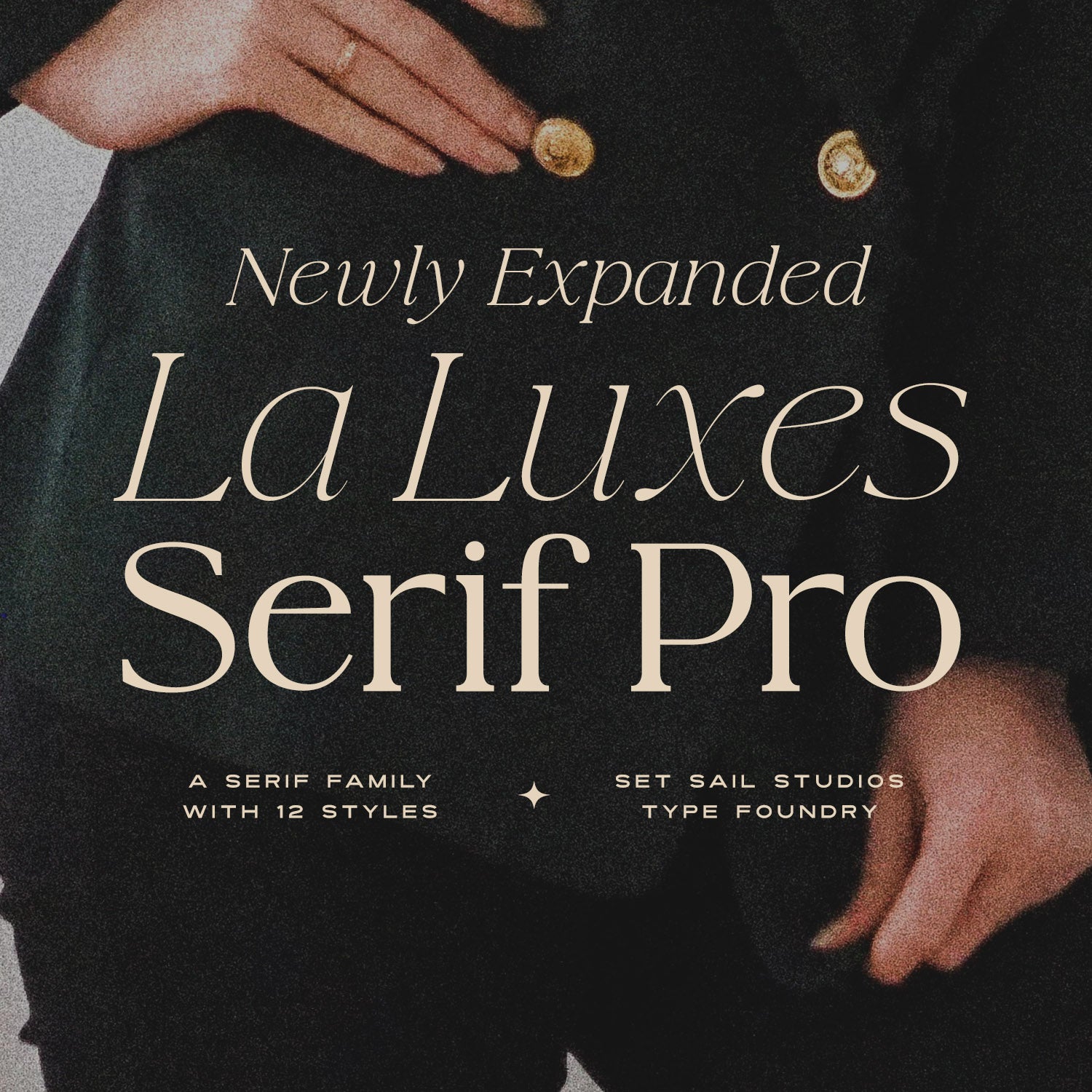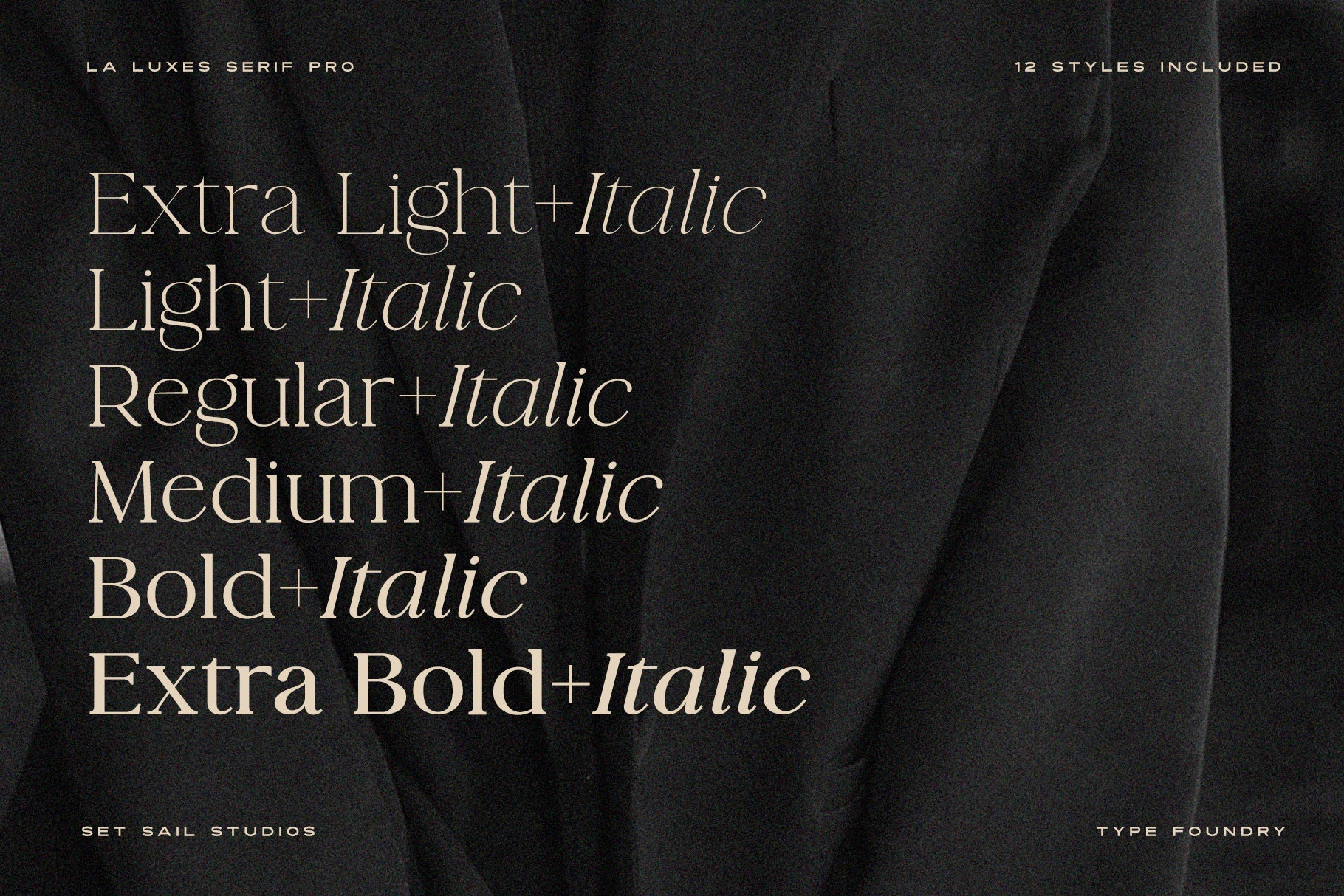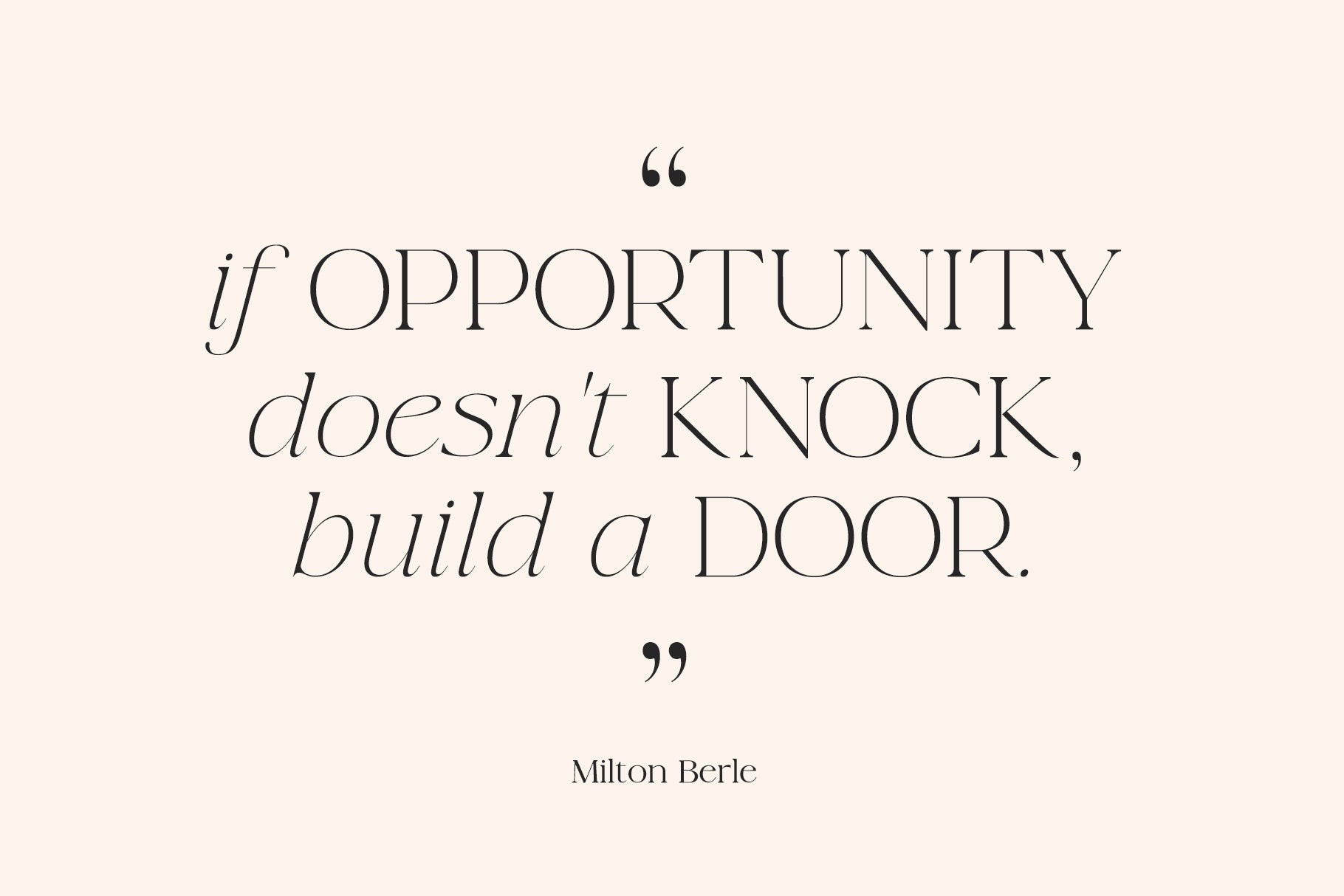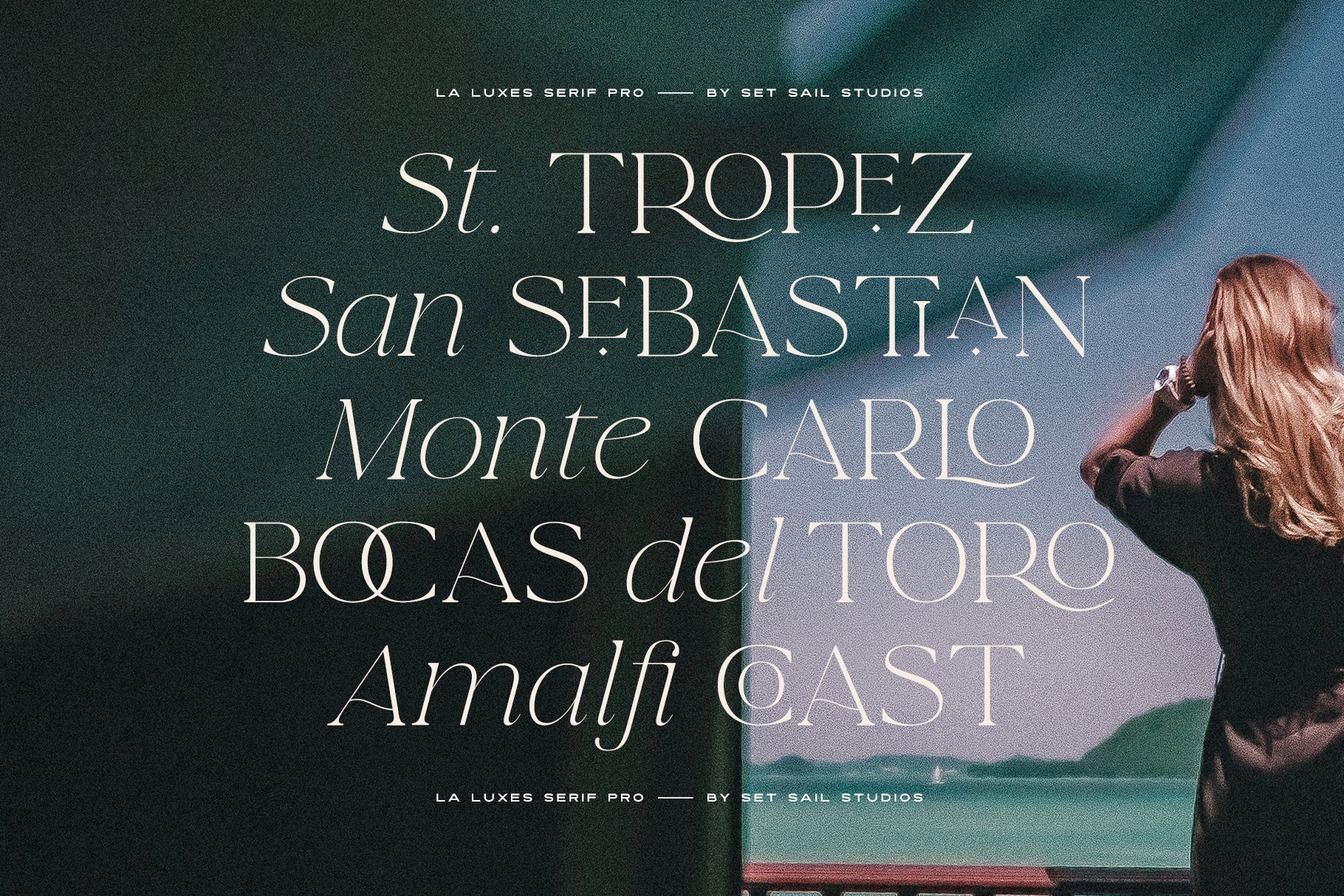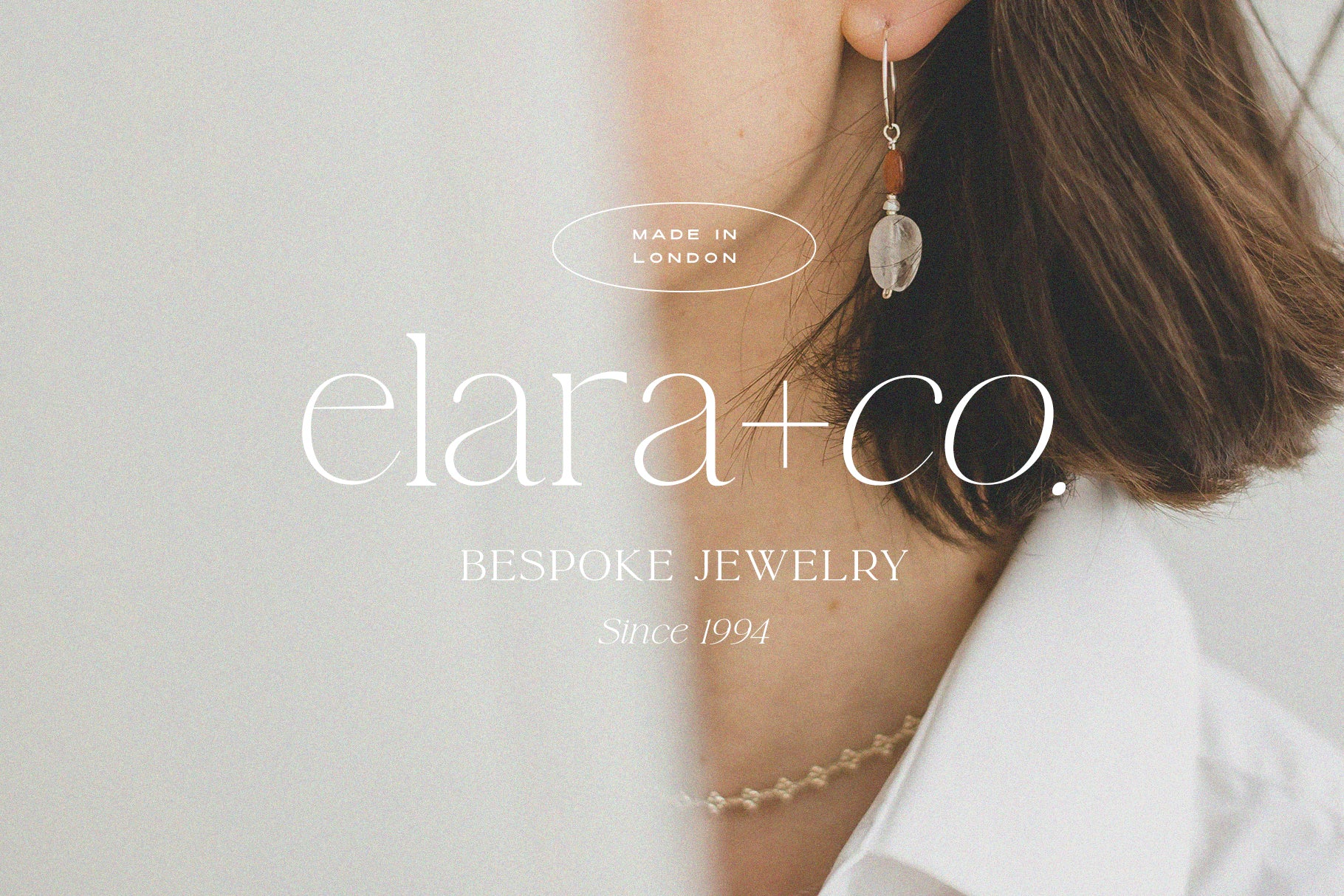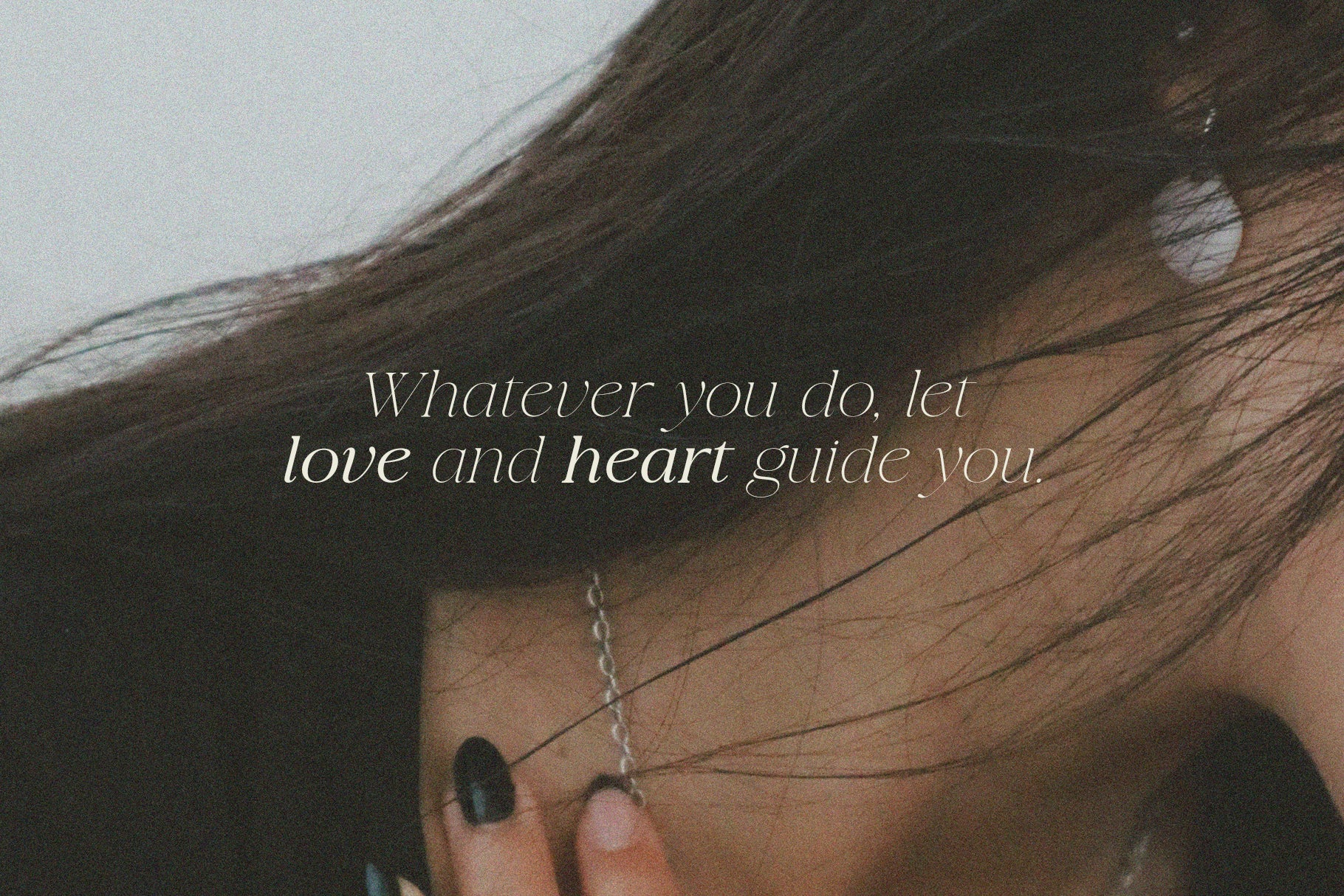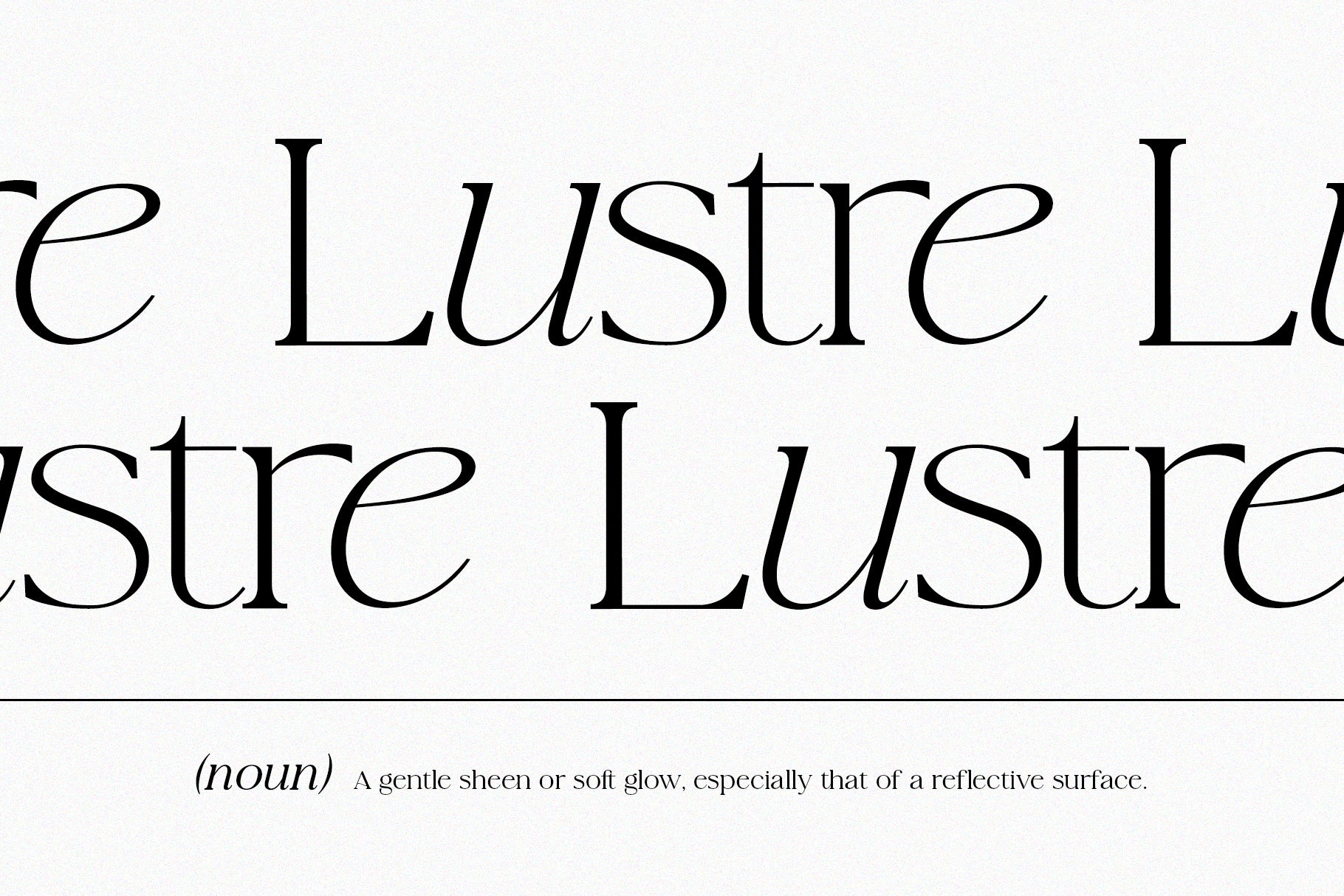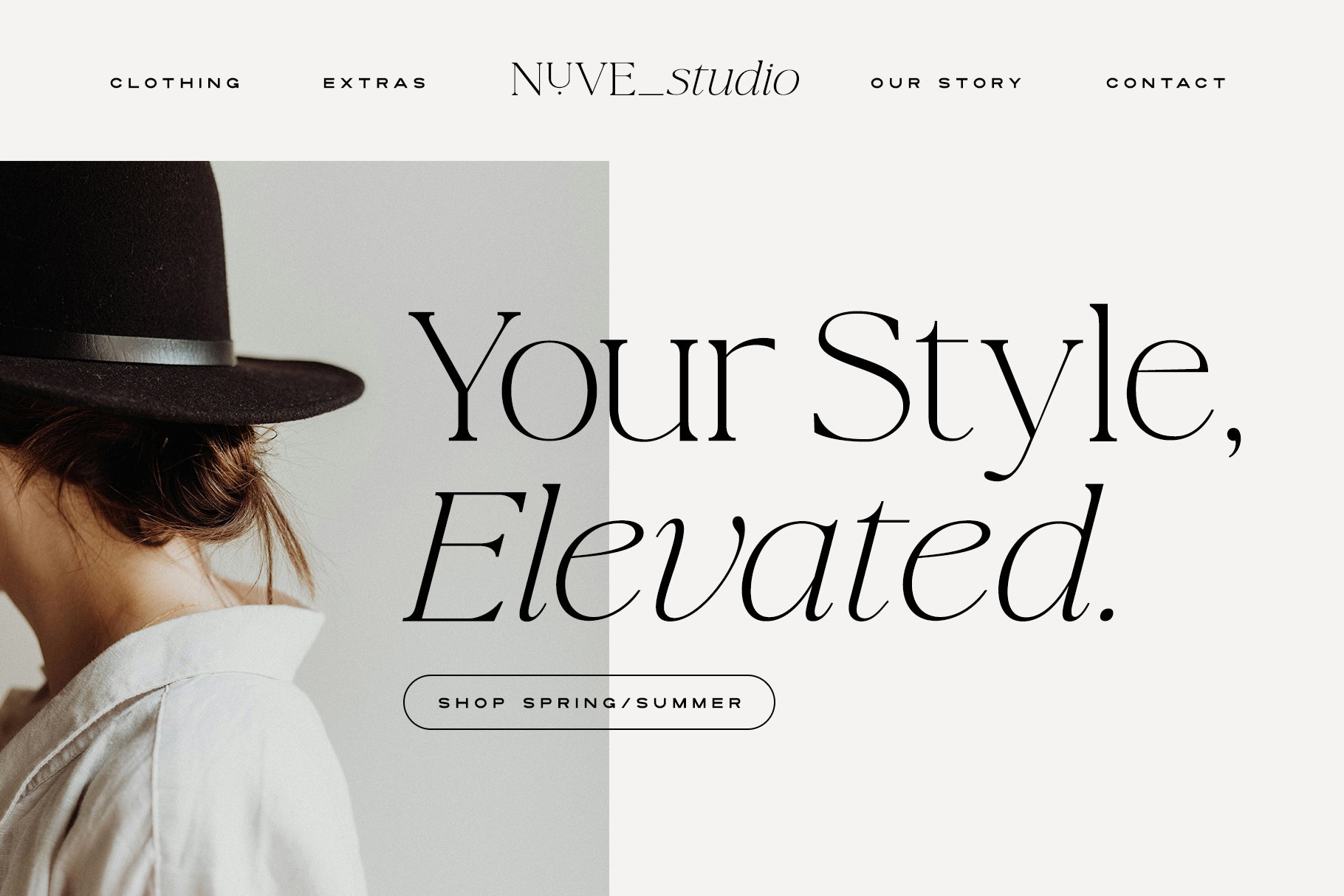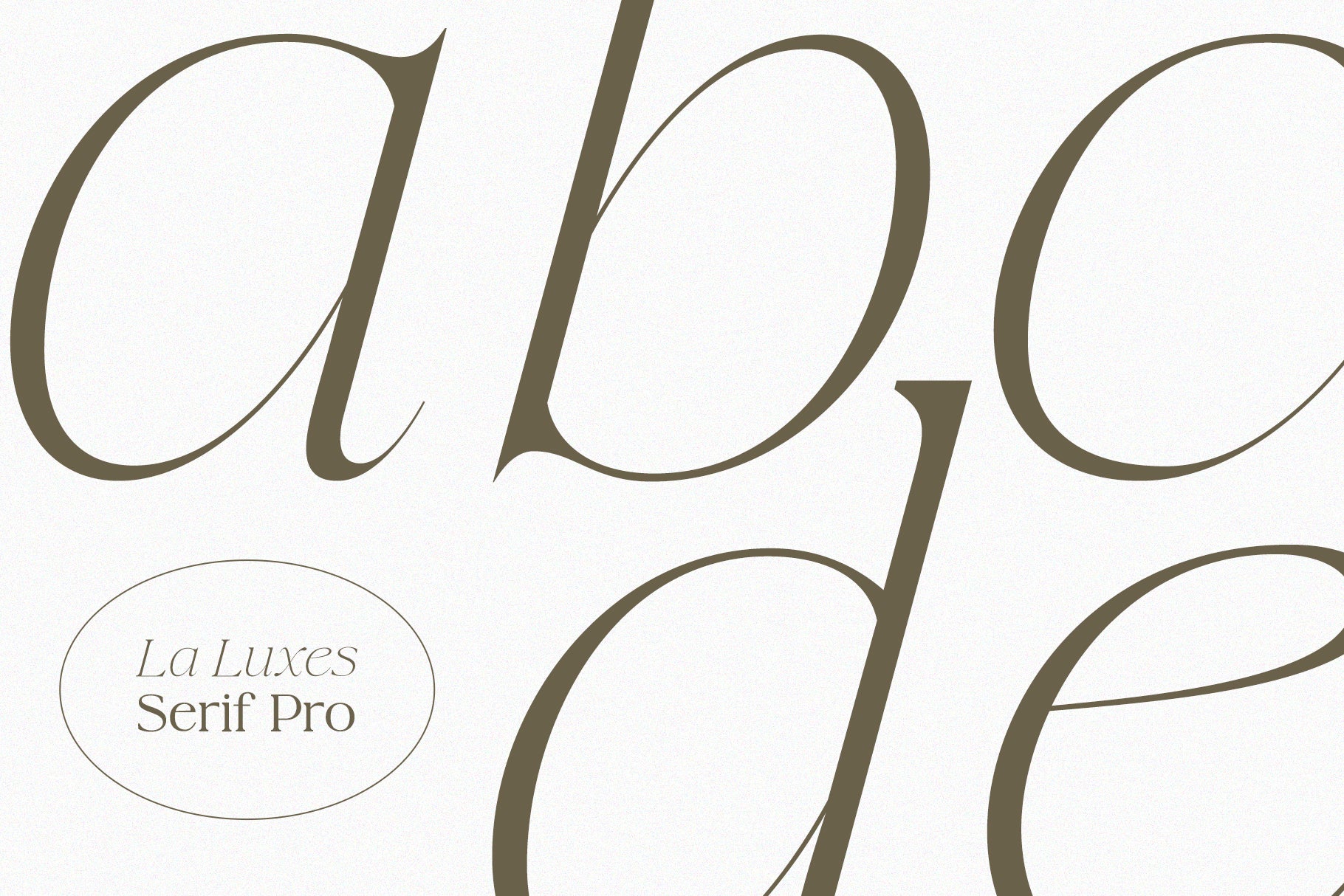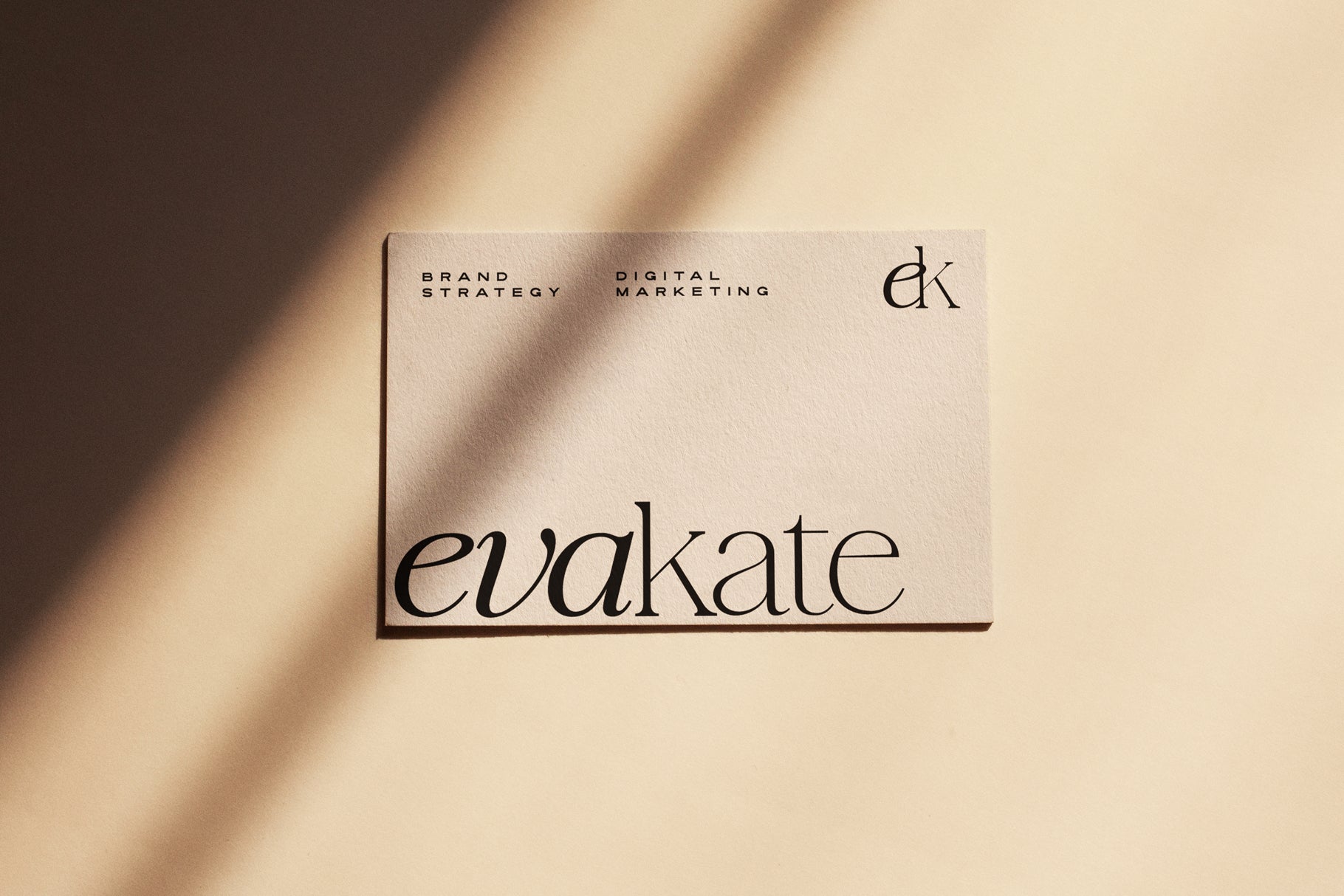
La Luxes Serif Pro 12 Font Family
La Luxes Serif Pro is a luxury font family that includes 12 fonts with 6 weights and corresponding italics, featuring a wide range of ligatures and special characters. It supports multiple languages and is PUA encoded for easy access to ligatures in unsupported software.